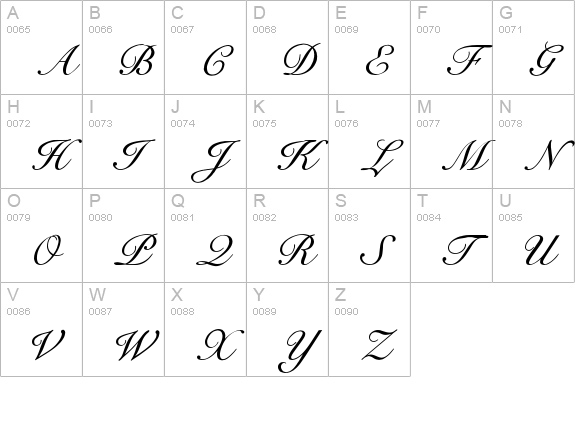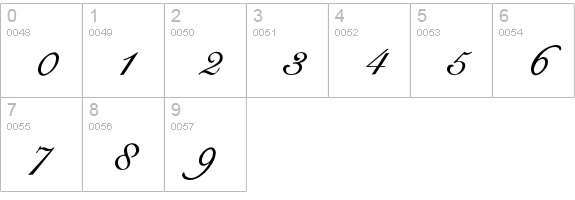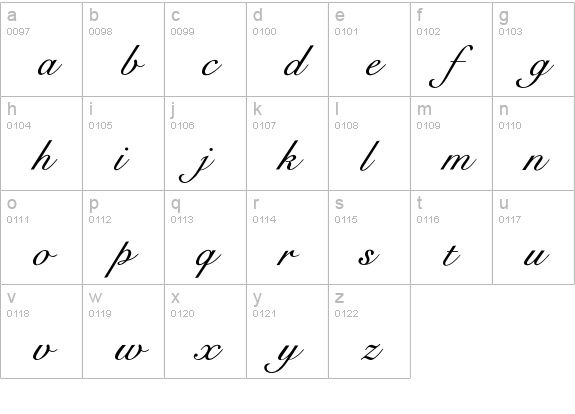
CygnetRound Font Details
CygnetRound font is a versatile and modern typeface that exudes elegance and sophistication. Its rounded edges give it a friendly and approachable appearance, making it perfect for a wide range of design projects. Whether you're creating branding materials, invitations, or social media graphics, CygnetRound font will add a touch of charm and style to your work. The best part? CygnetRound font is completely free to download at FontsMarket.com. This means you can elevate your designs without breaking the bank. With its clean lines and smooth curves, CygnetRound font is sure to become a go-to choice for all your creative endeavors. Download it today and see the difference it can make in your projects.